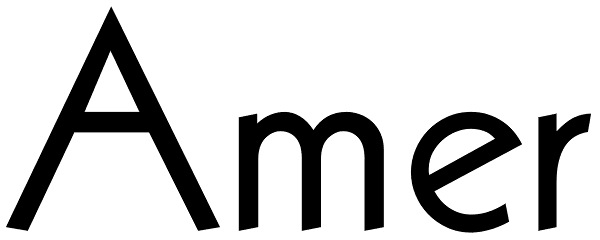
Amer
Amer was originally designed for dry transfer and redrawn and digitized by Adrian Williams. Amer is a modern Arabic headline face, which includes Latin glyphs from Kabel Book, allowing users to set text in both most Western European and Arabic...